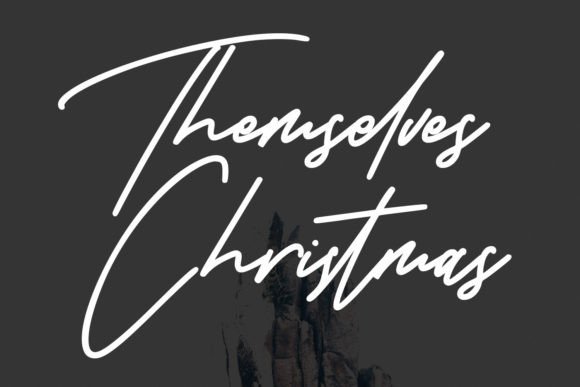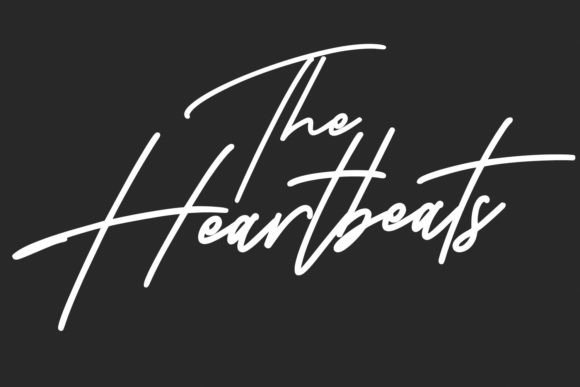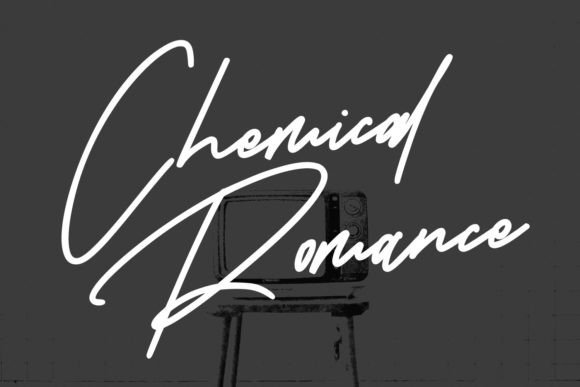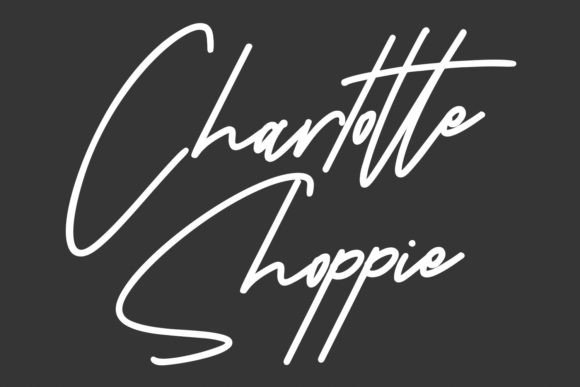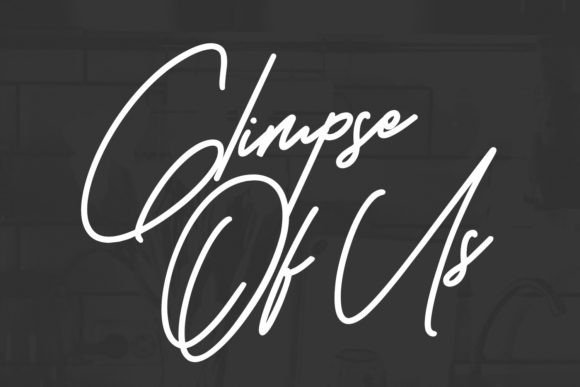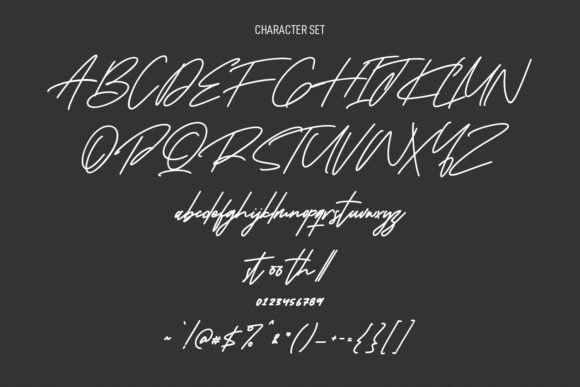
Eastern Ranger Font
The Eastern Ranger Font Download is a casual super-slanted script typeface designed to bring bold energy and creative flair to your projects. With its dynamic tilt and stylish flow, this handwritten script is perfect for modern branding, posters, apparel design, and digital content. Its versatile style ensures it becomes an essential asset in any designer’s font library.
A Super Slanted Script with Casual Charm
Unlike standard handwritten fonts, this Eastern Ranger script font features a bold slant that creates movement and energy in every stroke. As a result, it feels playful, casual, and stylish—making it suitable for projects that need both personality and readability.
Handwritten fonts bring life to personal stationery, and the Eastern Ranger Font is excellent for invitations, greeting cards, thank you notes, and seasonal designs. Moreover, its slanted structure adds a modern edge, making every card stand out with elegance and style.
Branding and Logo Design with Eastern Ranger Font
Typography communicates a brand’s personality, and the Eastern Ranger handwritten font works beautifully for boutique logos, apparel branding, and product packaging. In addition, its slanted and casual strokes create a professional yet approachable identity for businesses.
Posters, Titles, and Creative Displays
The Eastern Ranger Font Download is a great choice for posters, advertising layouts, and editorial projects. Therefore, it adapts well to both large-scale and small-scale applications, always maintaining clarity and visual appeal.
In digital platforms, fonts must catch attention instantly. The Eastern Ranger typeface integrates seamlessly into Instagram posts, Pinterest graphics, YouTube thumbnails, and blogs. Its slanted handwritten design ensures that digital projects look dynamic and engaging.
Why Designers Choose Eastern Ranger Typeface
Designers love fonts that deliver creativity without losing usability. Many slanted handwritten fonts become difficult to read, but the Eastern Ranger handwritten script keeps its casual personality while staying clear and versatile. This makes it a dependable choice for professionals and hobbyists alike.
Add Bold Movement to Your Projects Today
If you want a handwritten script that feels casual, dynamic, and versatile, the Eastern Ranger Font Download is the perfect choice. From branding and posters to invitations and social media, it enhances every design with slanted handwritten charm. Finally, download Eastern Ranger today and let your creativity flow with energy and elegance.